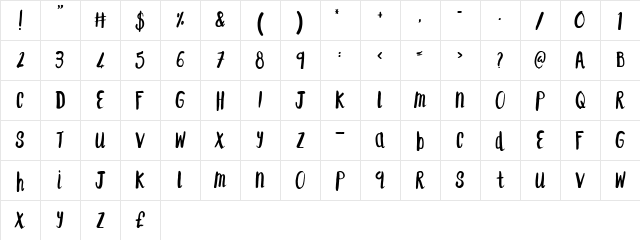
F... SAINT-TROPEZ Regular Free Font
F... SAINT-TROPEZ Regular
Foundry: F IS FOR FONTS
Designer: F IS FOR FONTS
Design Context for F... SAINT-TROPEZ
F... SAINT-TROPEZ is a composed and adaptable typeface that performs quietly and consistently across a wide range of design contexts.